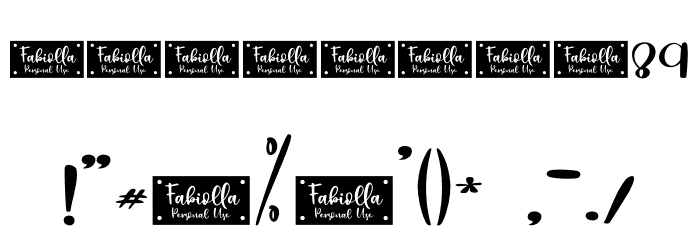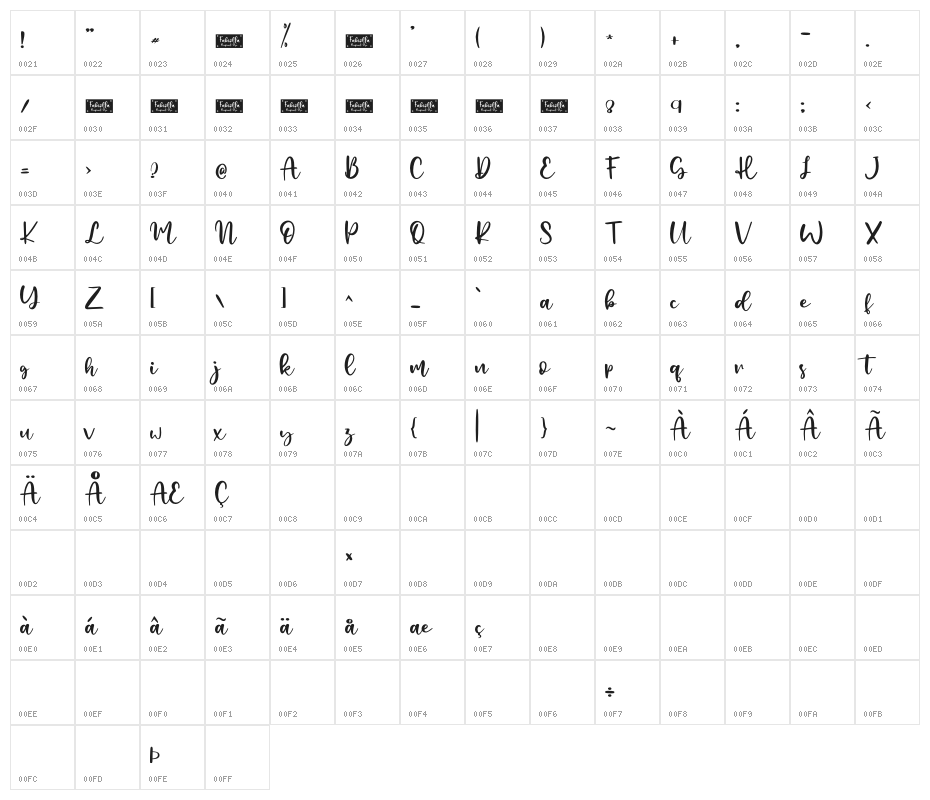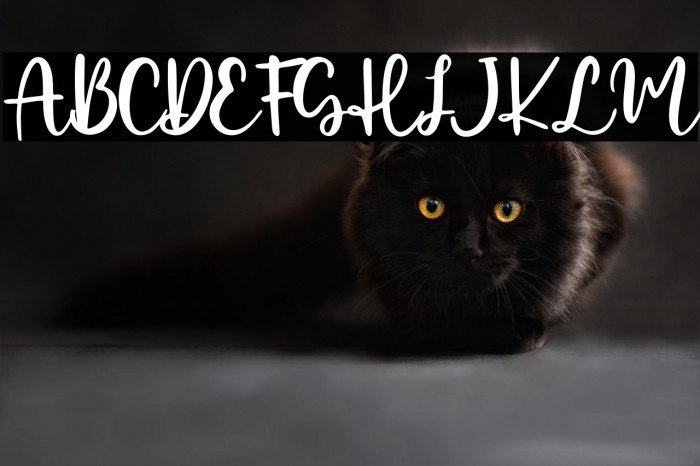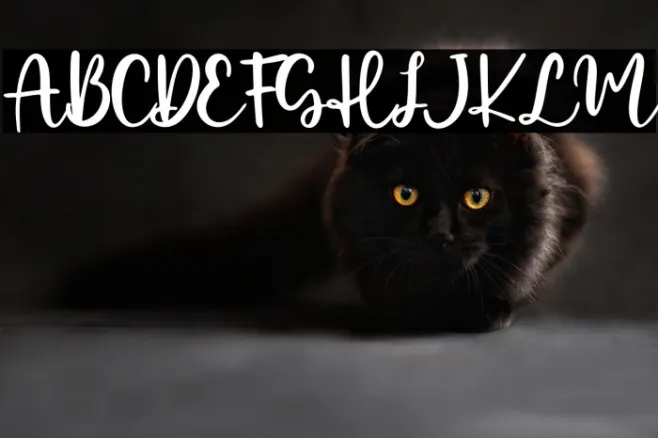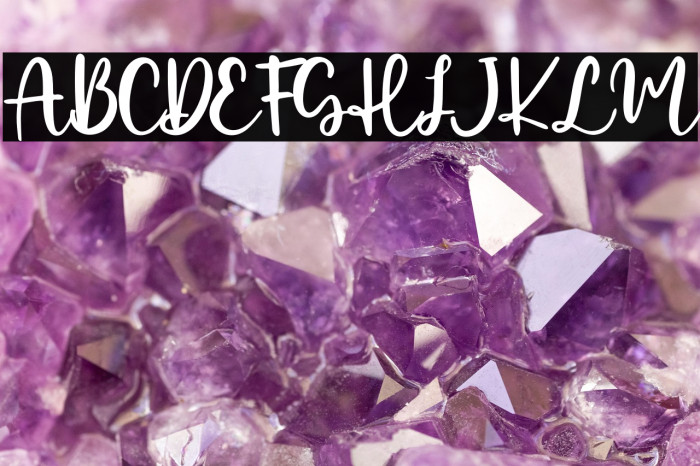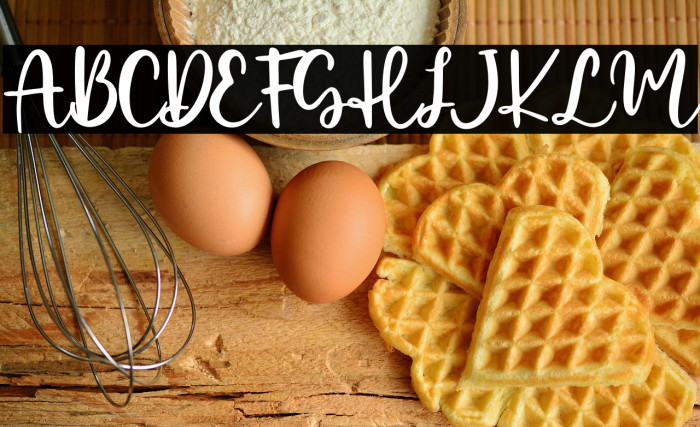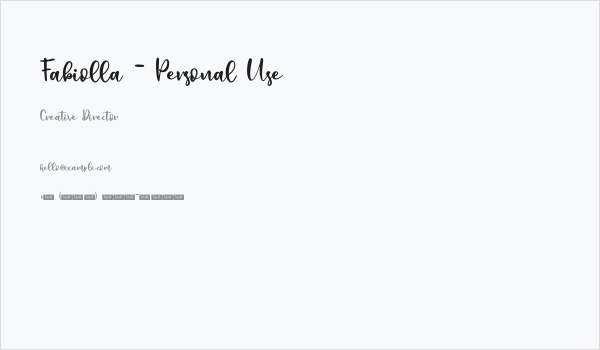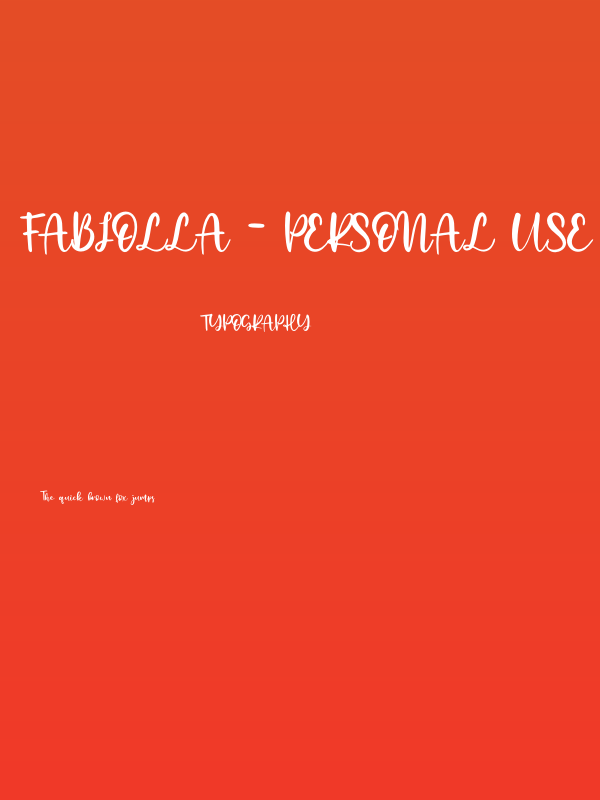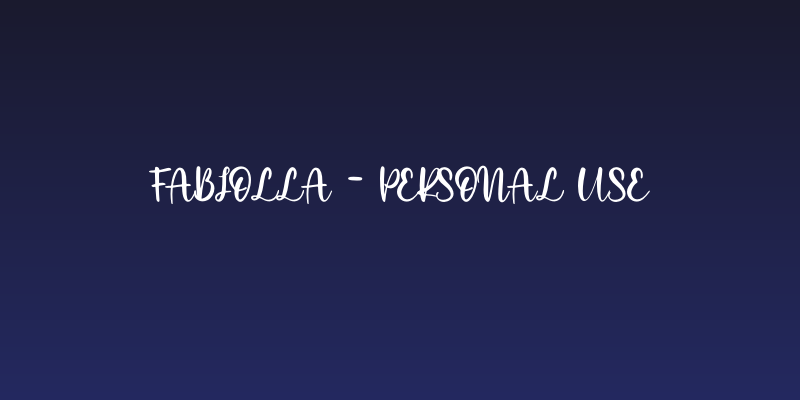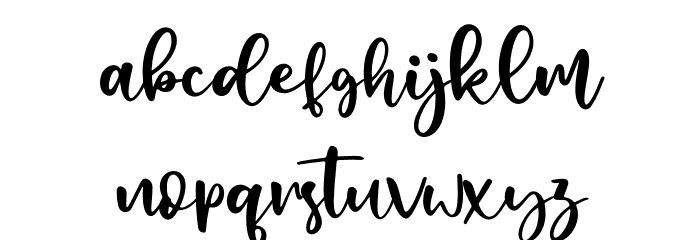
Fabiolla - Personal Use Font
Fabiolla - Personal Use Description
This font features a playful and elegant script style with smooth, flowing lines and a handwritten appearance. The uppercase letters are bold and slightly exaggerated, giving them a distinctive flair, while the lowercase letters maintain a consistent, rounded form. The characters are well-spaced, providing a balanced and readable look. The numbers and special characters complement the overall style, maintaining the same fluidity and charm. This font is ideal for projects that require a personal touch, such as invitations, greeting cards, and branding materials.